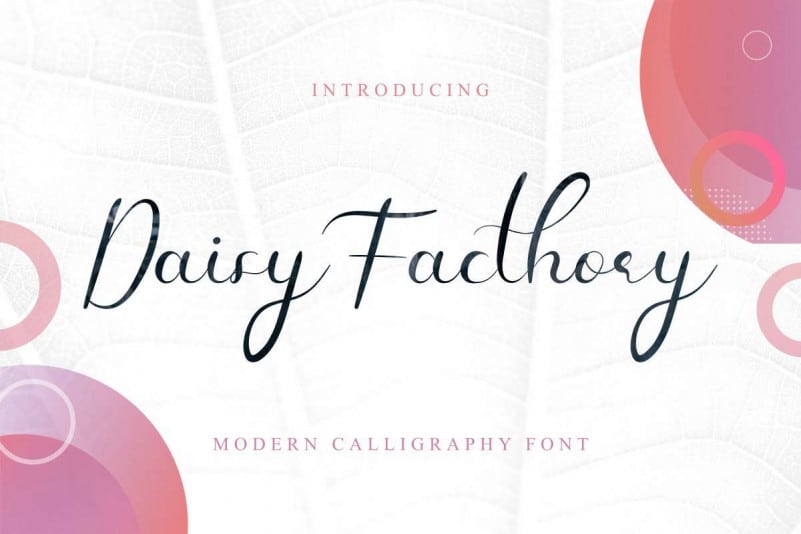
Daisy Facthory Calligraphy Font
Daisy Facthory Font is elegant calligraphy typeface, designed to convey elegance and style. It is slender, feminine and friendly, This font is casual and pretty with swashes.